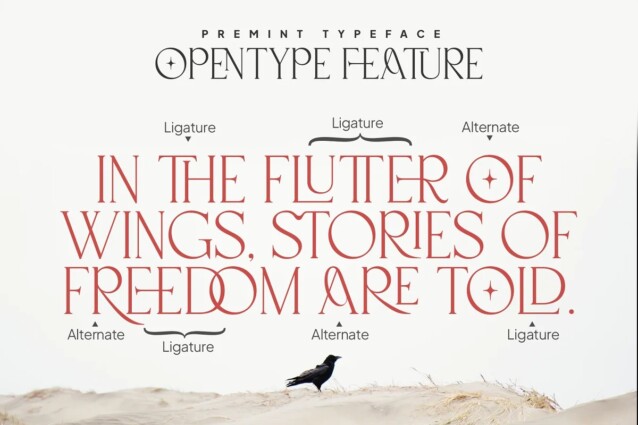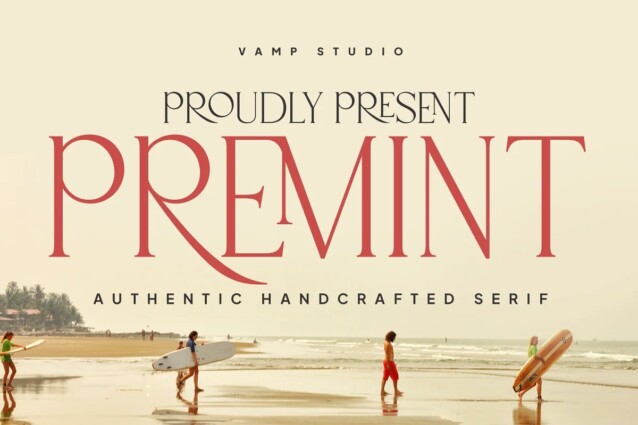
Premint Font
Premint Font is a modern and classy serif font created by Vampstudio with tons of special alternative glyphs and ligatures and create with special style, regular and outline. Specially designed by skilled hands makes this font is the perfect fit for all your big projects.
Premint is perfect for branding projects, logo, wedding designs, social media posts, advertisements, product packaging, product designs, label, photography, watermark, invitation, stationery and any projects that need handwriting taste.